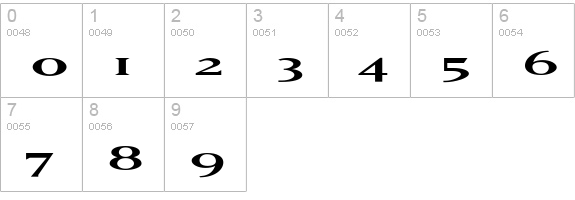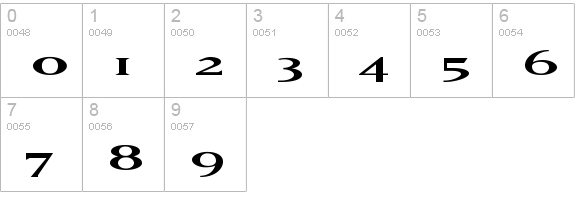
MatrixWide Font Details
Introducing MatrixWide font - a stunning typeface that combines sleek modernity with a touch of elegance. Its wide and spacious letterforms exude a sense of sophistication and clarity, making it perfect for a variety of design projects. Whether you're creating a sleek logo, eye-catching poster, or stylish branding materials, MatrixWide font is sure to make a lasting impression. What's even better is that MatrixWide font is available for free download at FontsMarket.com! Yes, you read that right - you can elevate your designs with this beautiful font without spending a dime. Don't miss out on this fantastic opportunity to add MatrixWide font to your design arsenal and take your projects to the next level. Download it today and let your creativity shine!